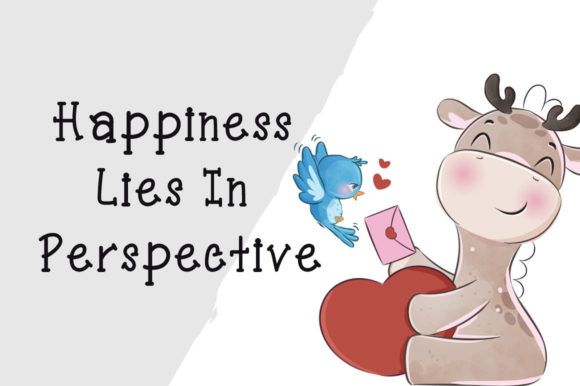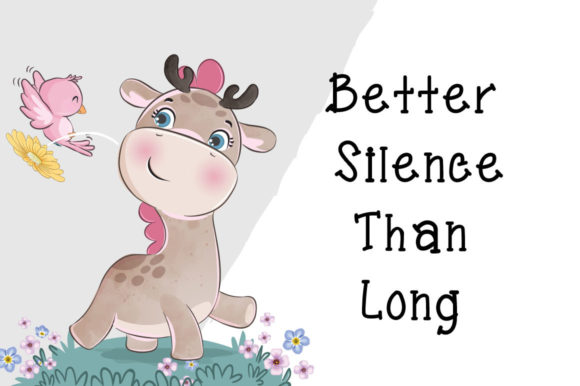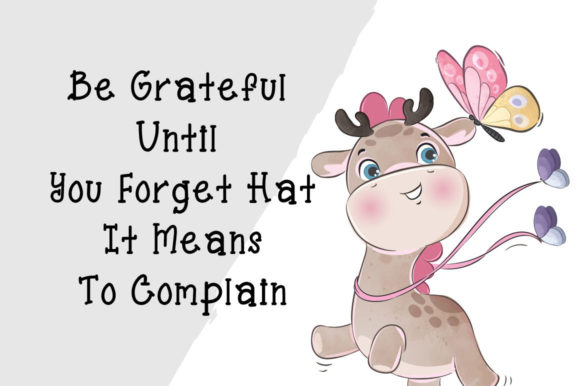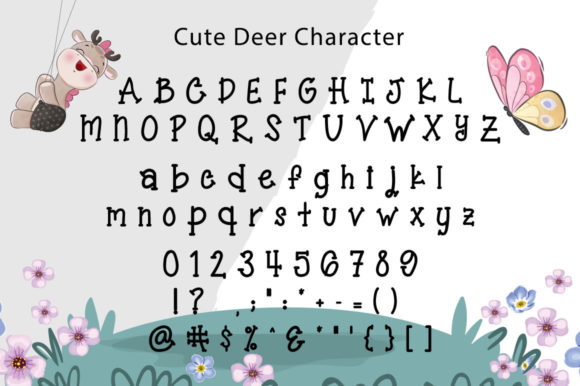
Cute Deer Font
About Cute Deer Font
“Cute Deer” is a charming and playful display font that radiates friendliness and readability, making it an excellent choice for a variety of creative applications. Its whimsical and childish design ensures that it brings a delightful touch to any project, making it a versatile and go-to font for numerous occasions.
The inherent cuteness of “Cute Deer” makes it a perfect fit for crafting projects, where it can add a touch of playfulness to handmade creations. In digital design, it stands out with its friendly and easy-to-read demeanor, making it ideal for a range of applications, from websites to social media graphics. Whether you’re creating presentations or designing greeting cards, this font has the potential to become a favorite due to its versatility and charm.
No matter the occasion, “Cute Deer” can infuse a sense of joy and approachability into your designs. Its whimsical nature makes it well-suited for conveying a lighthearted and friendly atmosphere. Add this font to your collection and let its impeccable friendliness make your projects stand out with a touch of playful charm.